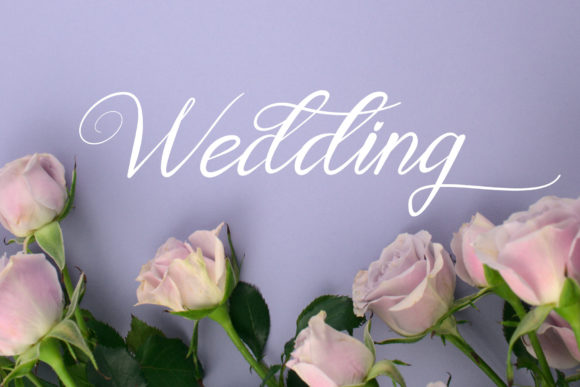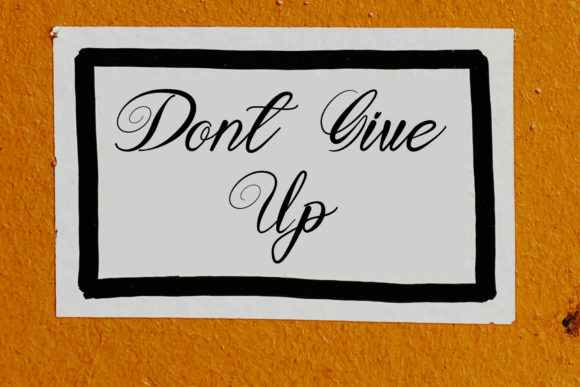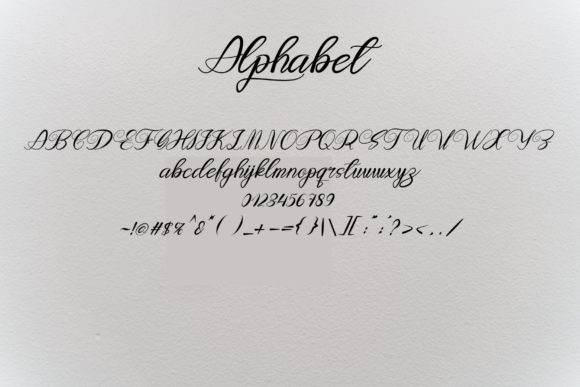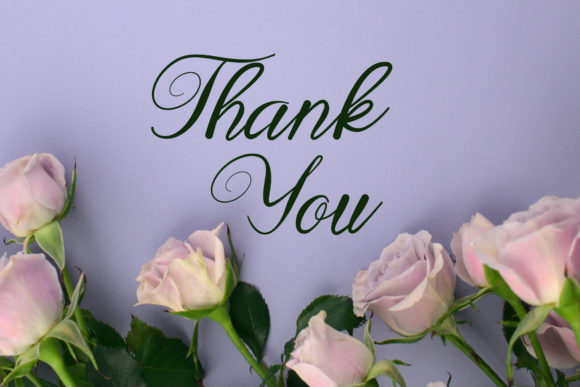
Ayatts Font: Elevate Your Designs with Elegance and Sophistication
In the world of typography, a well-crafted font can make all the difference in elevating your designs from ordinary to extraordinary. For designers and crafters seeking to add a touch of elegance and sophistication to their projects, Ayatts Font is an exceptional choice. This beautiful script font is inspired by timeless classic calligraphy, boasting a contemporary atmosphere and impeccable form that is sure to impress.
The Characteristics of Ayatts Font
Ayatts Font is characterized by its balanced and varied strokes, carefully designed to create a sense of harmony and refinement. Not too thin and not too thick, this font strikes the perfect balance, making it suitable for a wide range of applications, from wedding invitations and branding materials to packaging and digital media.
One of the standout features of Ayatts Font is its PUA (Private Use Area) encoding. This means that users can easily access all the glyphs and swashes, allowing for greater flexibility and creativity in design. Whether you’re looking to add a personal touch or create a unique visual identity, Ayatts Font provides the tools to make it happen.
The Inspiration Behind Ayatts Font
Ayatts Font draws inspiration from the world of classic calligraphy, where the art of beautiful handwriting is revered. The font’s elegant script style is reminiscent of traditional calligraphic techniques, yet with a modern twist that makes it perfect for contemporary designs.
The creator of Ayatts Font has carefully crafted each letterform to exude a sense of sophistication and refinement, making it an ideal choice for designers seeking to add a touch of luxury to their projects. Whether you’re working on a high-end branding campaign or a bespoke wedding invitation, Ayatts Font is sure to deliver.
The Benefits of Using Ayatts Font
So, what sets Ayatts Font apart from other script fonts on the market? Here are just a few benefits of using this exceptional font in your designs:
- Elegance and sophistication: Ayatts Font adds a touch of refinement and luxury to any project, making it perfect for high-end designs.
- Versatility: With its balanced and varied strokes, Ayatts Font is suitable for a wide range of applications, from digital media to print materials.
- Easy to use: Ayatts Font is PUA encoded, making it easy to access all the glyphs and swashes, even for users with limited design experience.
- Unique and creative: With Ayatts Font, you can add a personal touch to your designs, setting them apart from the competition.
Tips for Using Ayatts Font in Your Designs
To get the most out of Ayatts Font, here are a few tips to keep in mind:
- Pair with complementary fonts: Ayatts Font pairs beautifully with sans-serif fonts, creating a striking contrast that adds visual interest to your designs.
- Experiment with swashes and glyphs: Take advantage of Ayatts Font’s PUA encoding to add unique touches to your designs, such as custom swashes and glyphs.
- Use for headlines and titles: Ayatts Font is perfect for headlines and titles, where its elegant script style can make a lasting impression.
In conclusion, Ayatts Font is an exceptional script font that offers designers and crafters a unique opportunity to elevate their designs with elegance and sophistication. With its balanced and varied strokes, PUA encoding, and classic calligraphic inspiration, Ayatts Font is the perfect choice for anyone seeking to add a touch of luxury to their projects. Whether you’re working on a high-end branding campaign or a bespoke wedding invitation, Ayatts Font is sure to deliver.